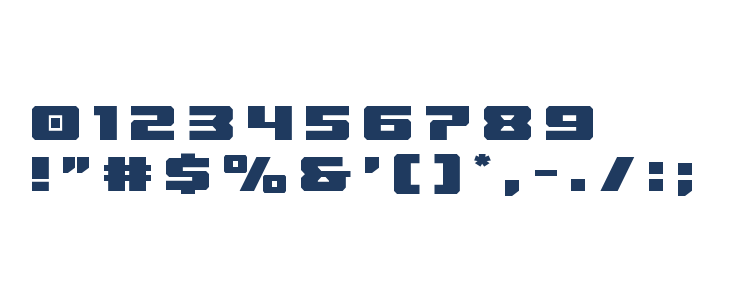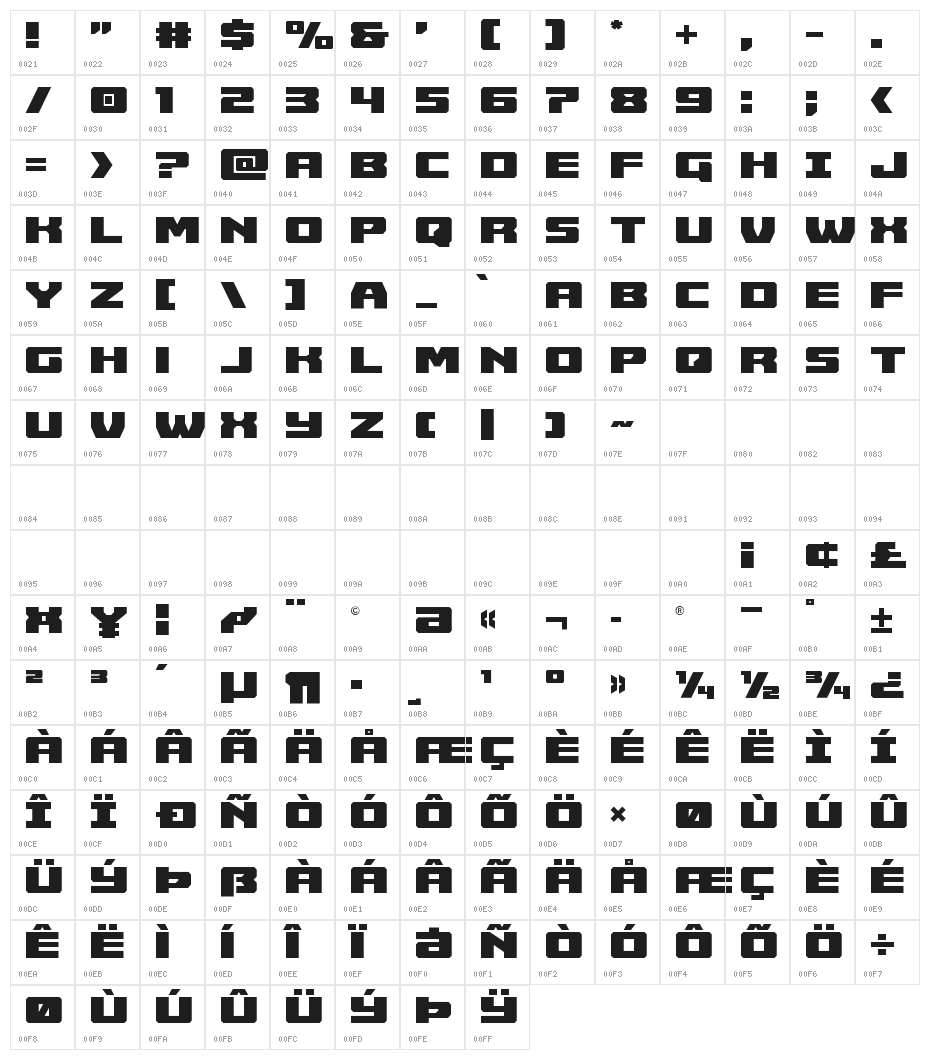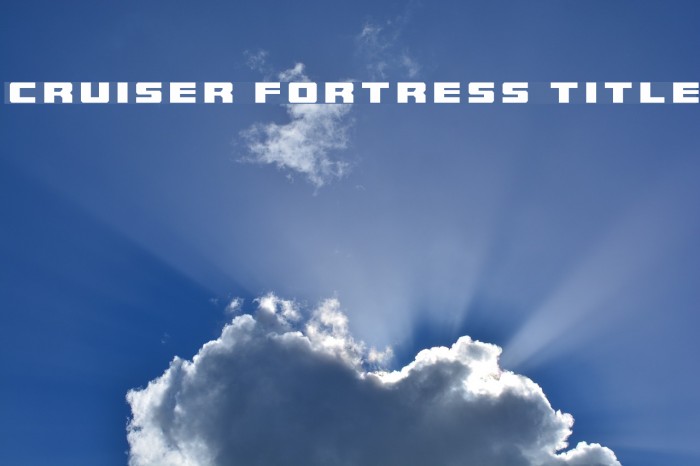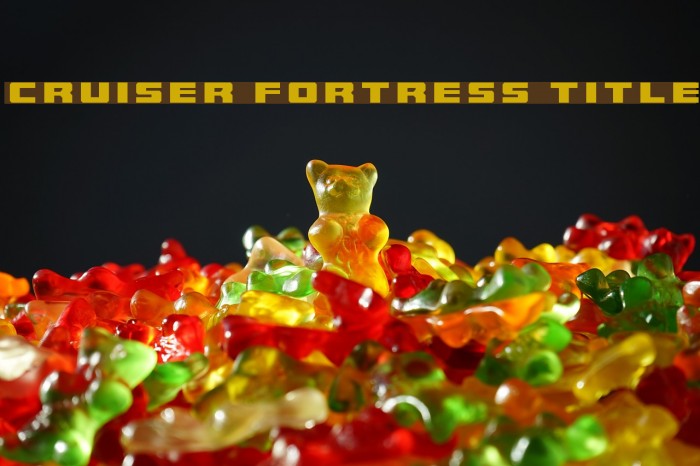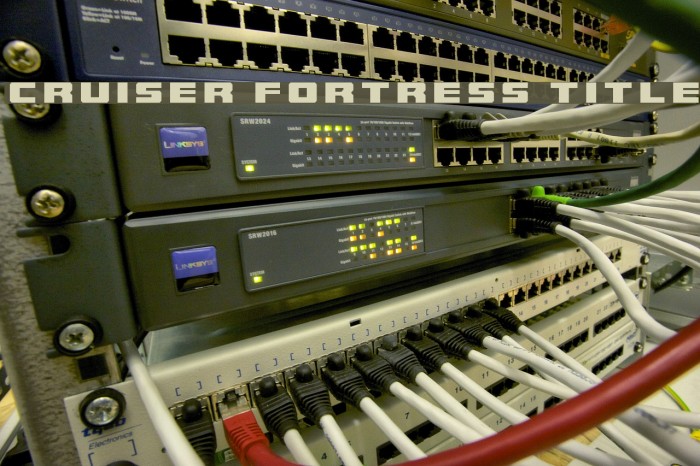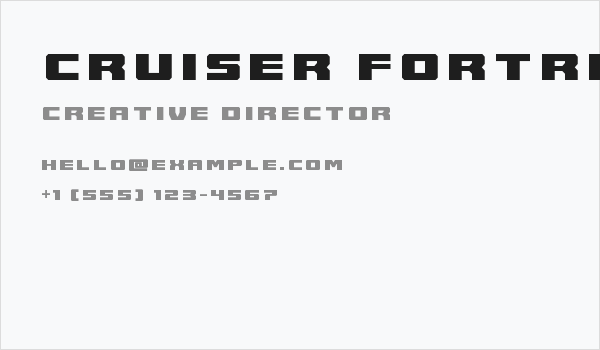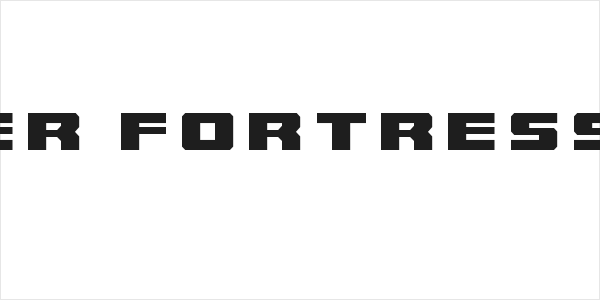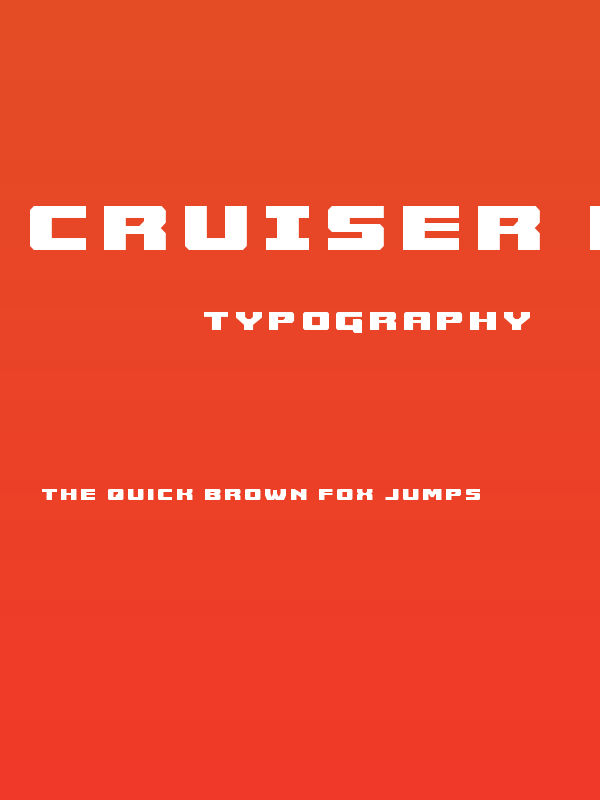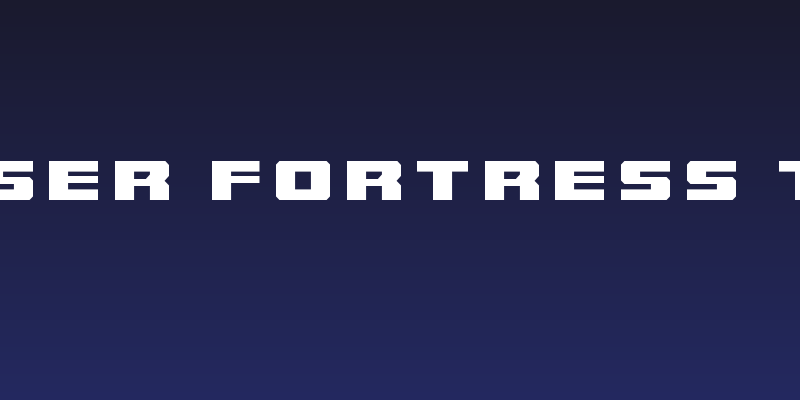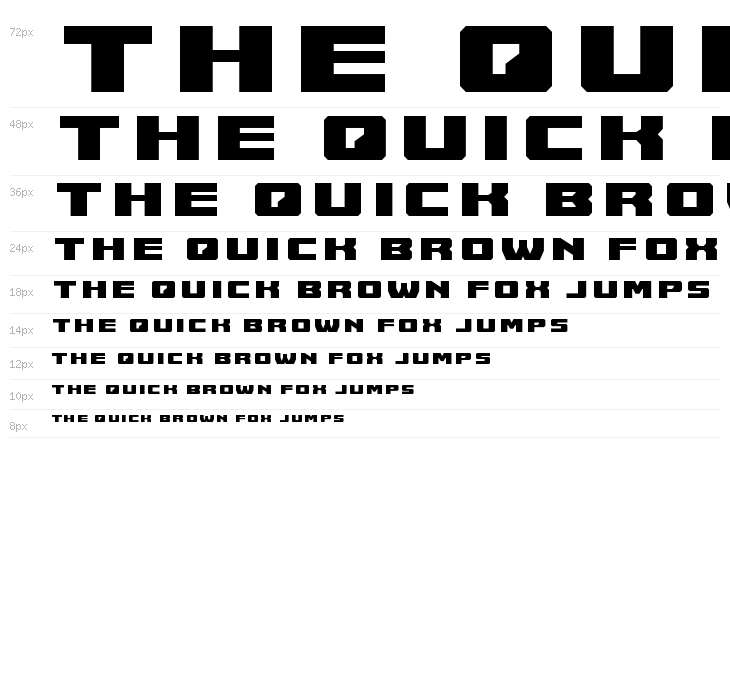
Cruiser Fortress Title Font
Cruiser Fortress Title Description
This font features a bold, geometric style with a strong presence. The characters are blocky and angular, providing a sense of stability and strength. Each letter is crafted with precision, featuring sharp edges and consistent stroke widths. The uppercase and lowercase letters maintain a uniform appearance, while the numerals and special characters complement the overall design. The font's boldness makes it ideal for impactful headlines and titles, ensuring that text stands out prominently.
Proposed ProjectsIdeal for use in posters, logos, video game titles, and any project requiring a strong, impactful typeface.